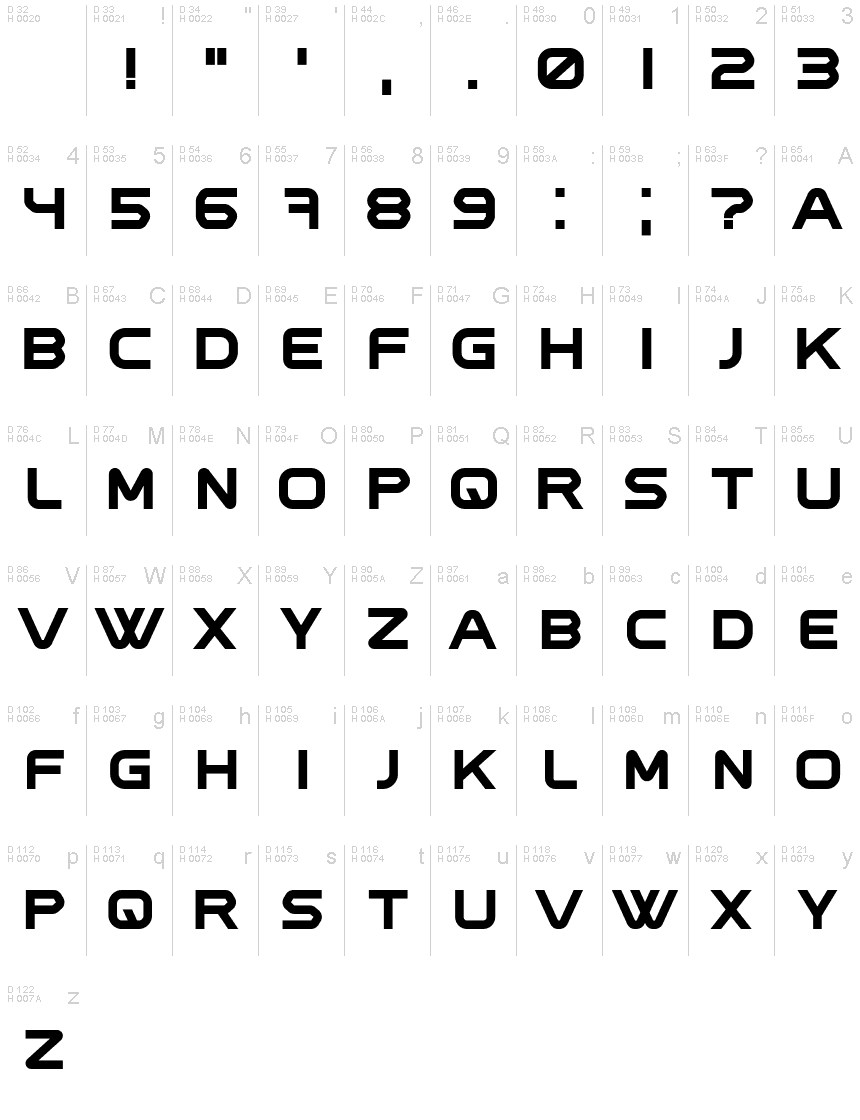
Blouse, the bold and expanded display font by Vladimir Nikolic is perfect for futuristic projects needing a technological edge. With its semi-bold weight and unique techno style, Blouse is ideal for branding, advertising, and product packaging. Its wide width makes it an excellent choice for headlines or titles that need to grab attention, while its clean lines ensure legibility even at smaller sizes. Use Blouse to add a modern flair to your designs in industries such as technology, gaming, or entertainment. Let Blouse make your brand stand out from the crowd with its sleek and innovative design.